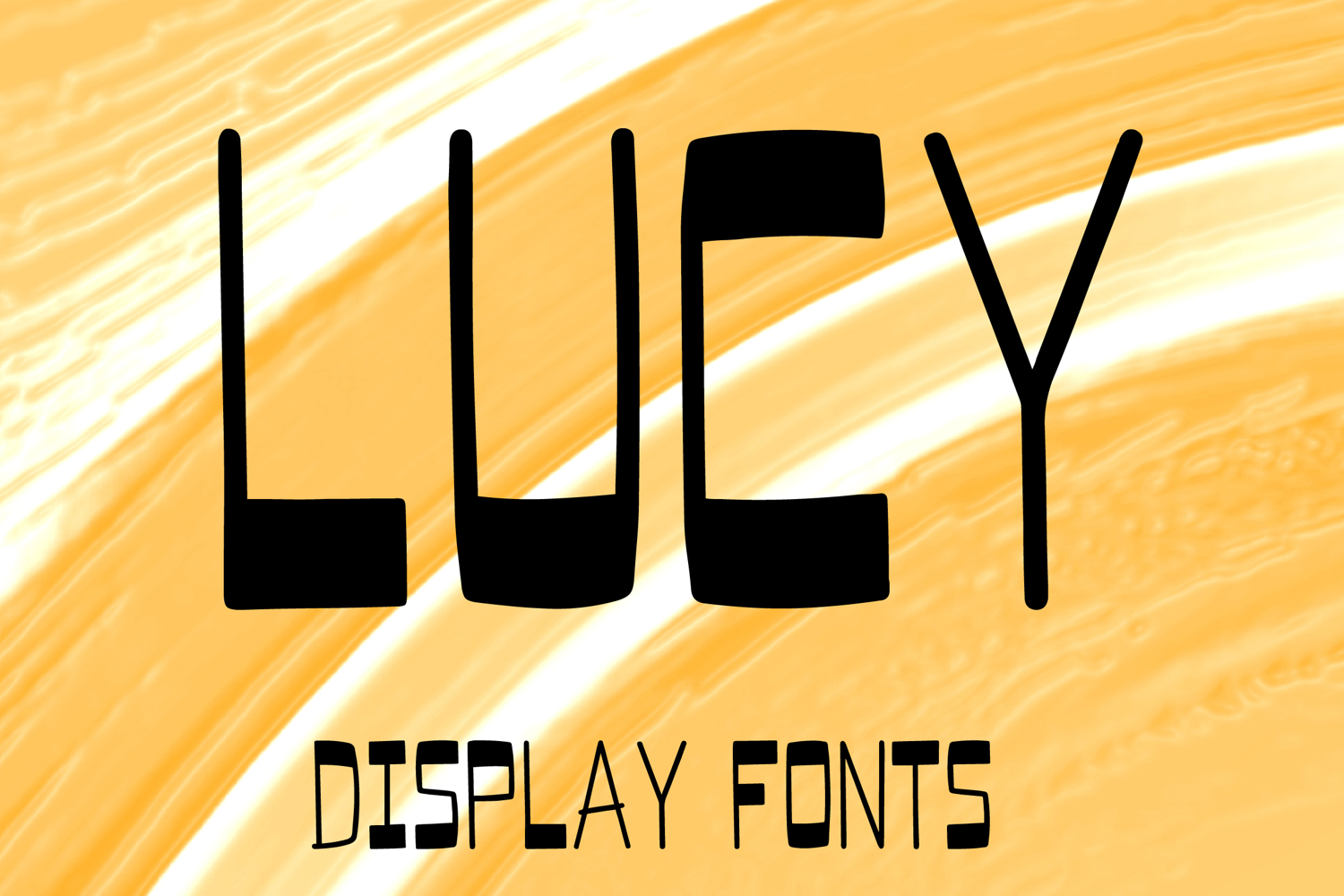
LUCY
LUCY is a modern display font with a tall minimalist style and sleek geometric character. Its uppercase letterforms feature slim elongated stems, bold grounded bases, and clean angular forms that create a stylish, contemporary, and eye-catching look. Designed with uppercase letters A–Z and numbers 0–9, LUCY is perfect for branding, posters, packaging, logos, headlines, and social media graphics that need a clean and memorable statement.